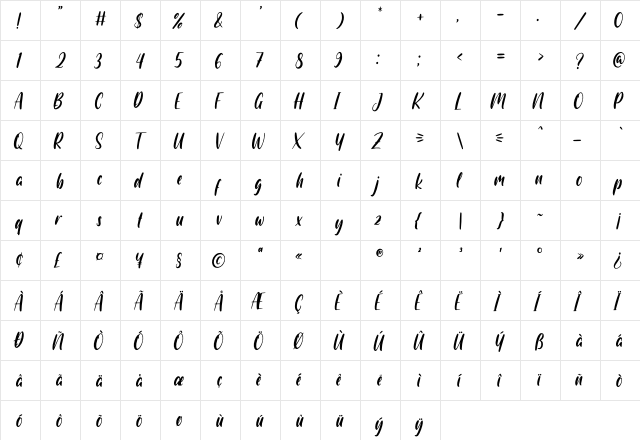
Summer Magic - Demo Regular
| Designer | Sigit Dwipa Raharjo |
Summer Magic - Demo is a composed and adaptable typeface that performs quietly and consistently across a wide range of design contexts.